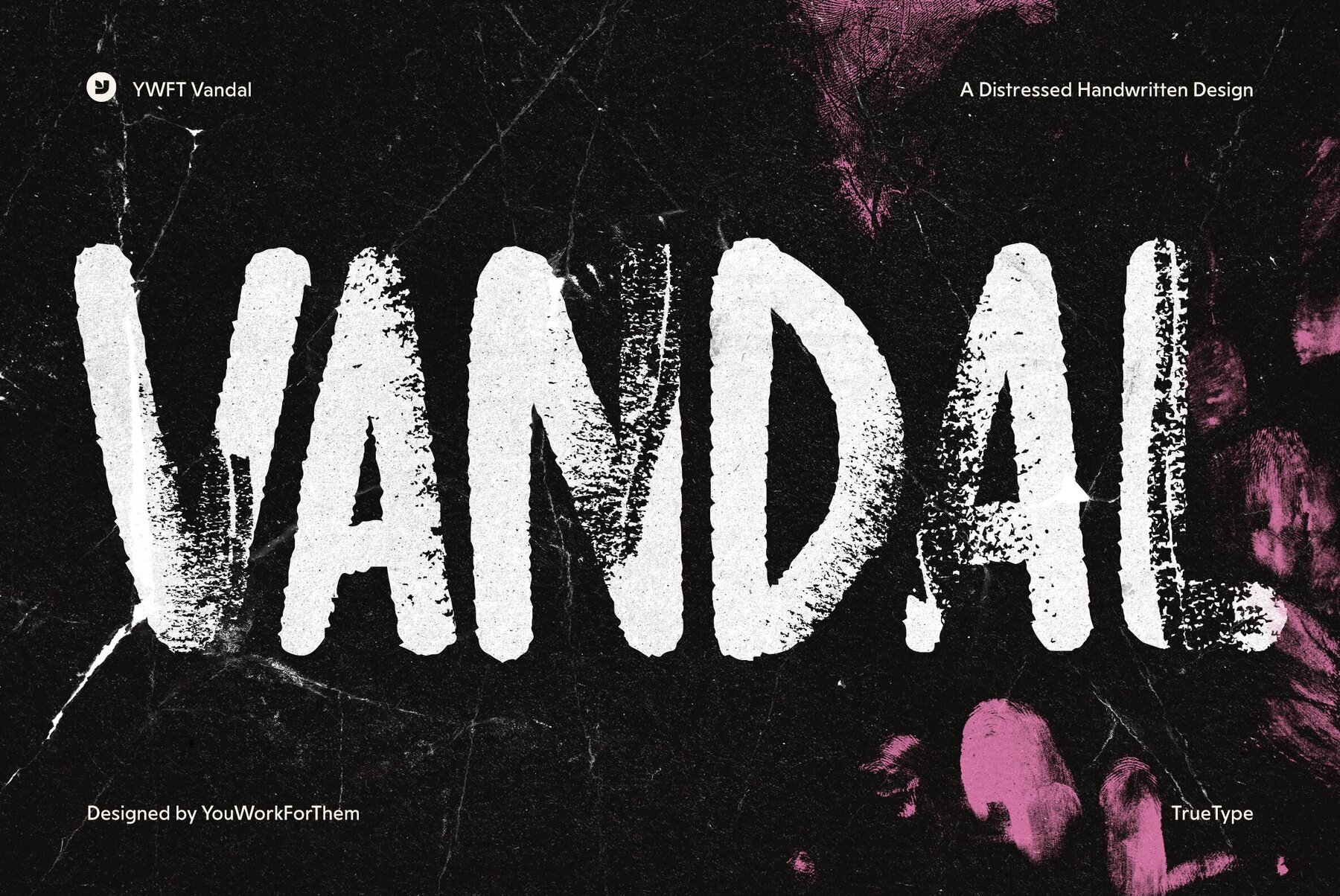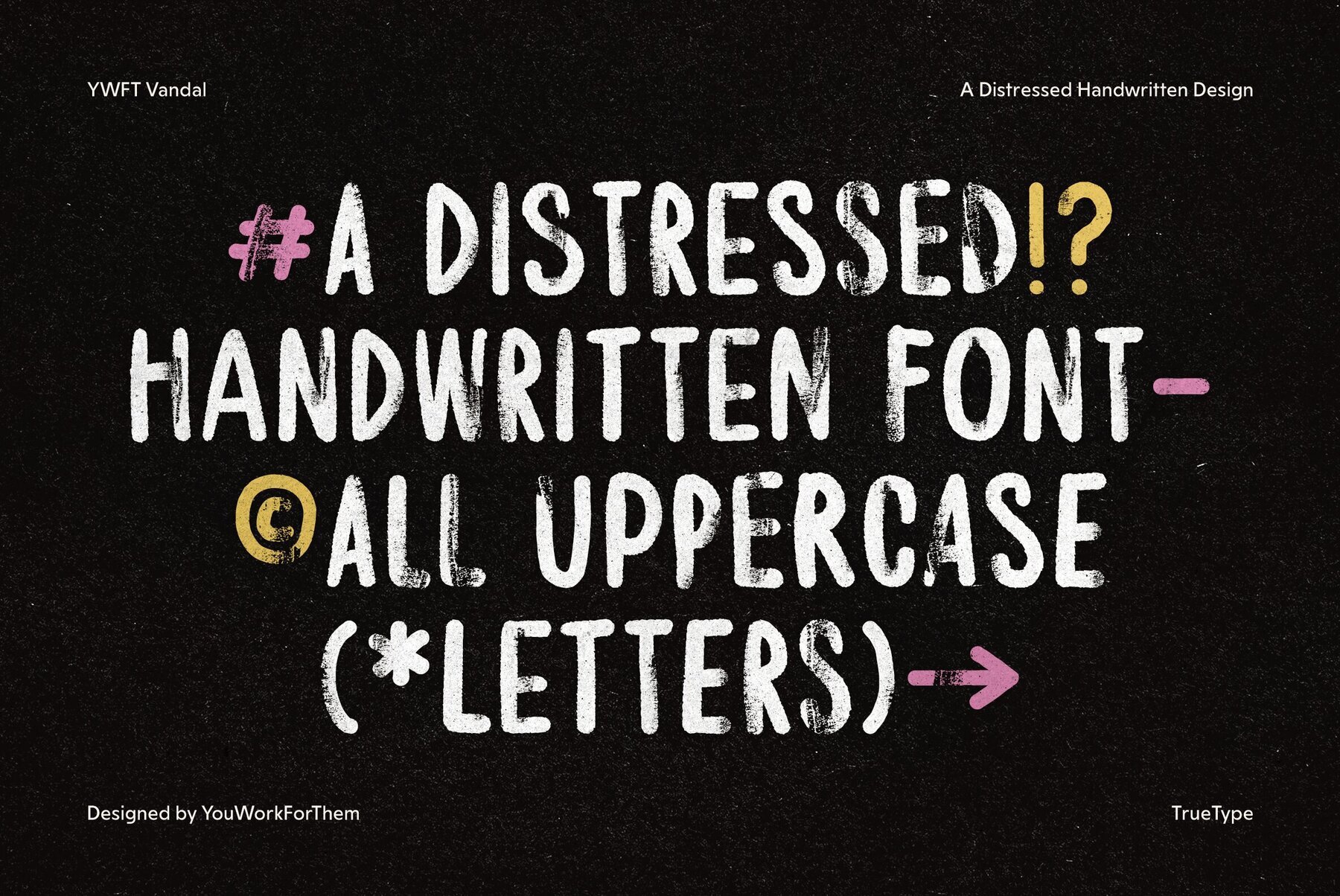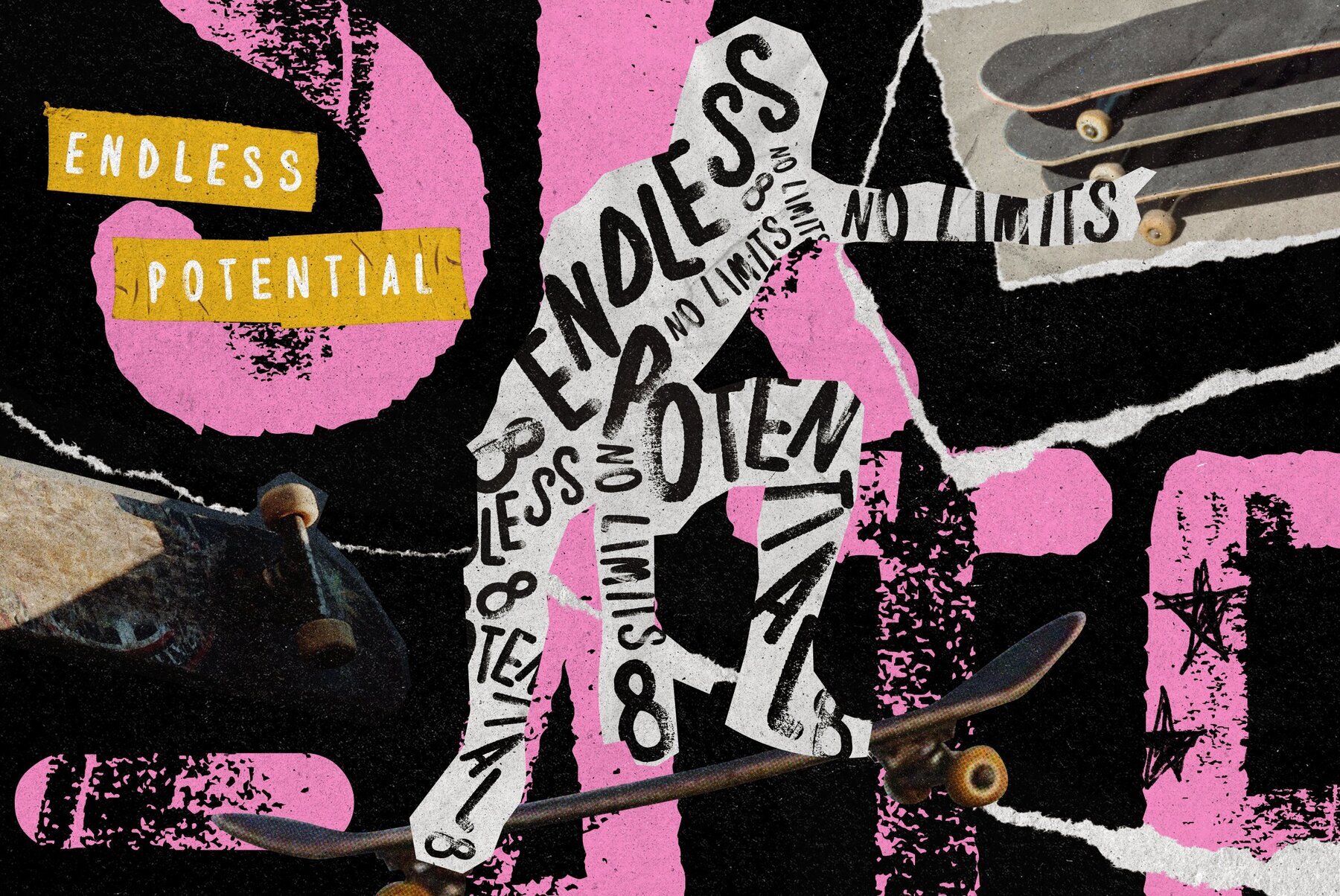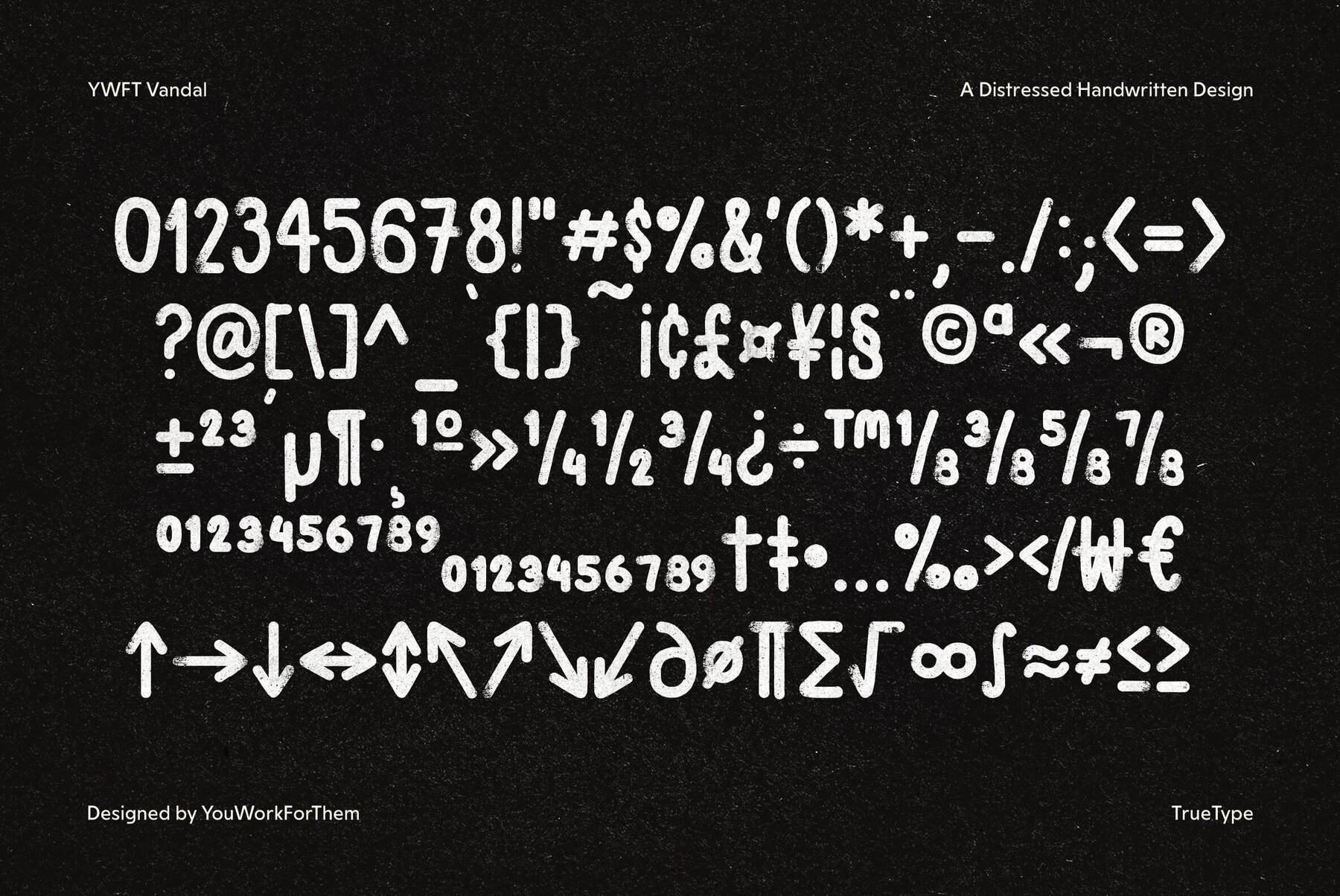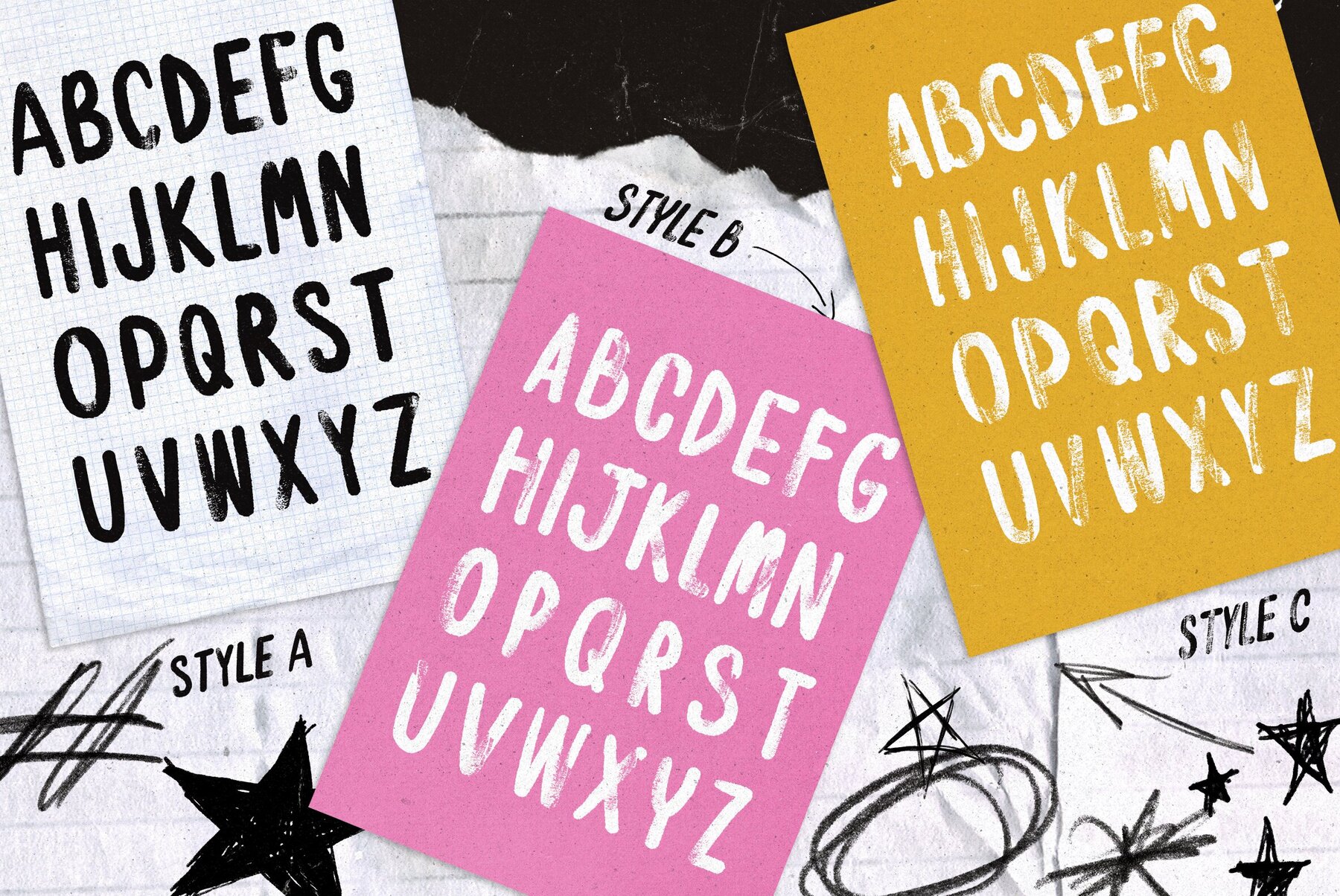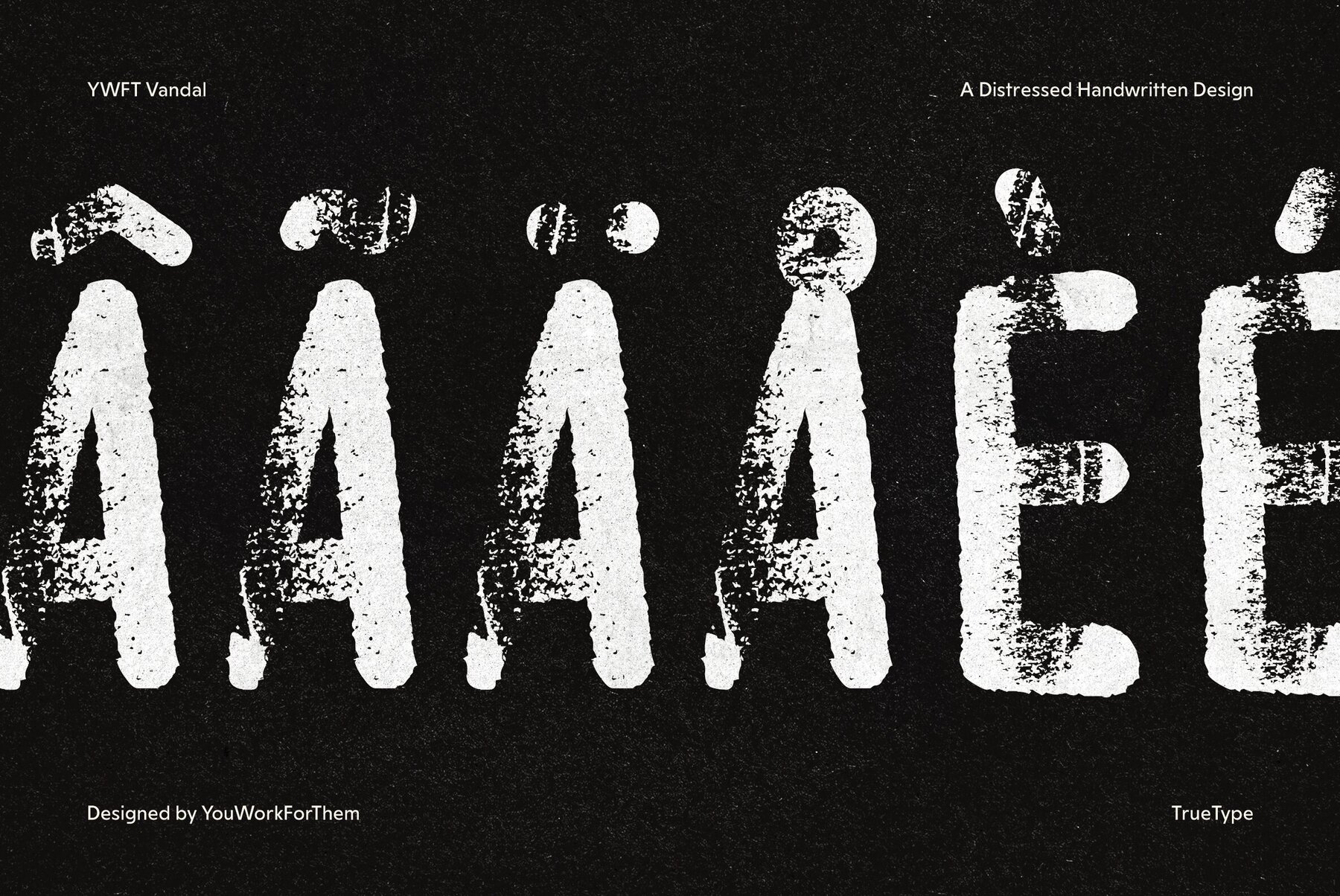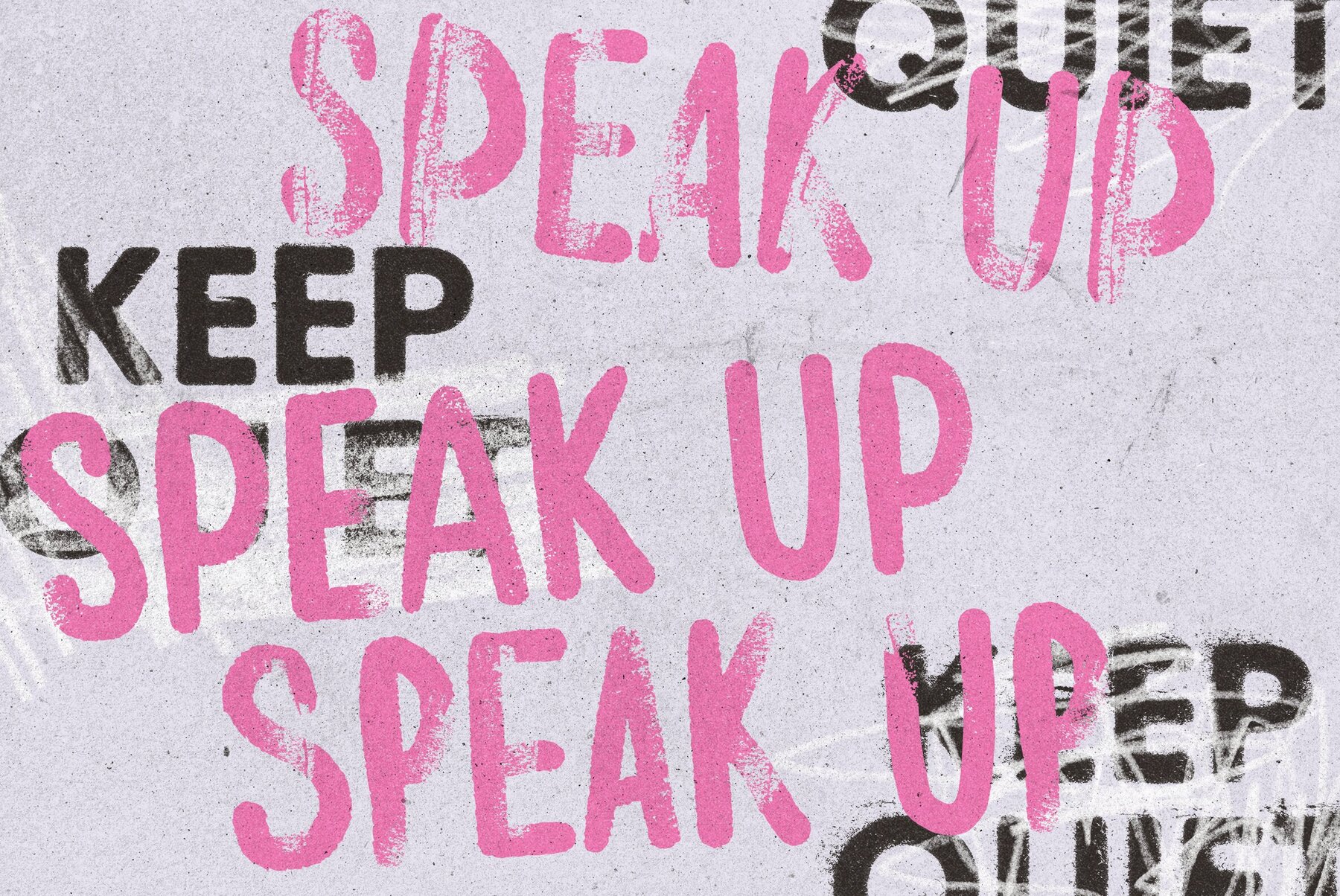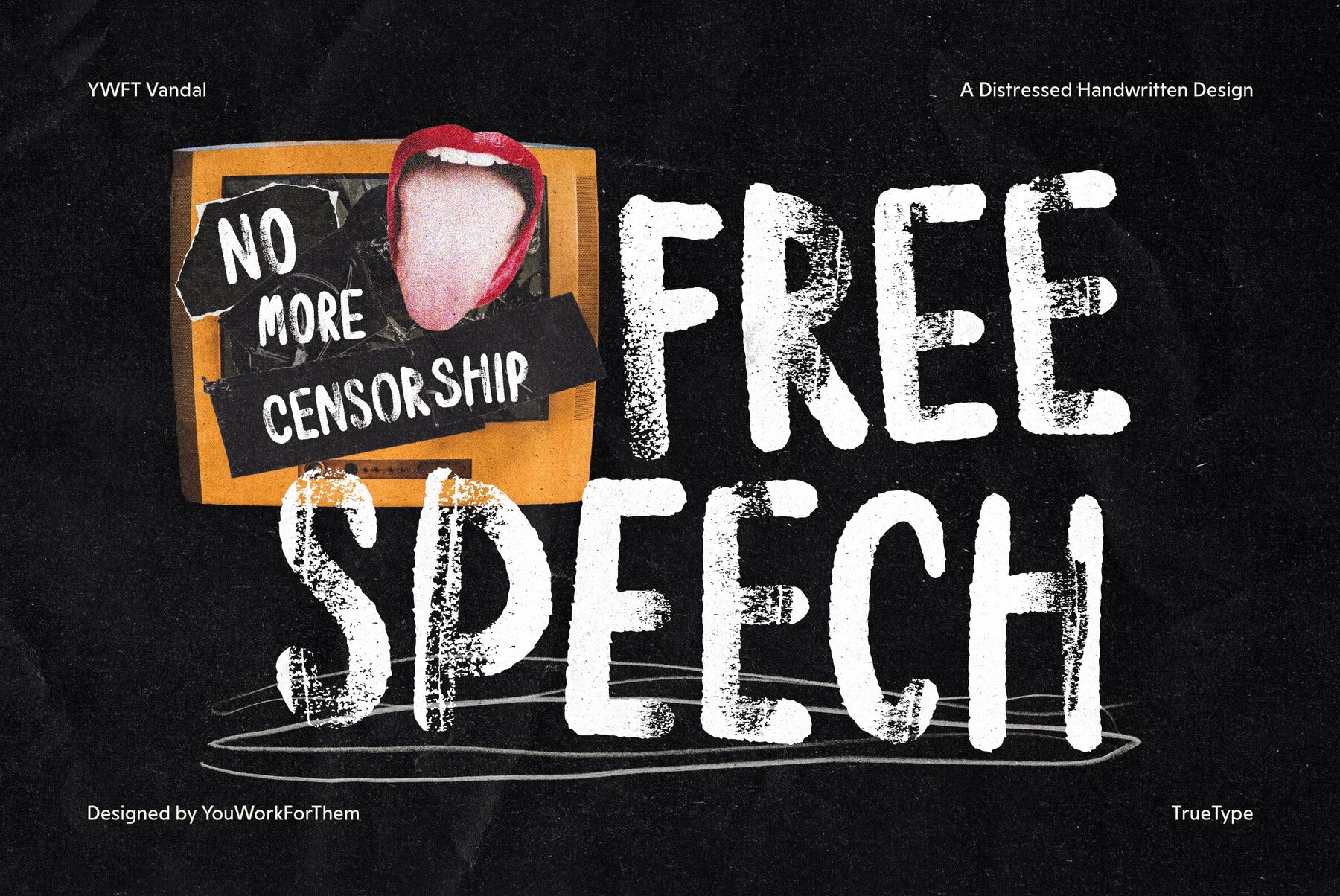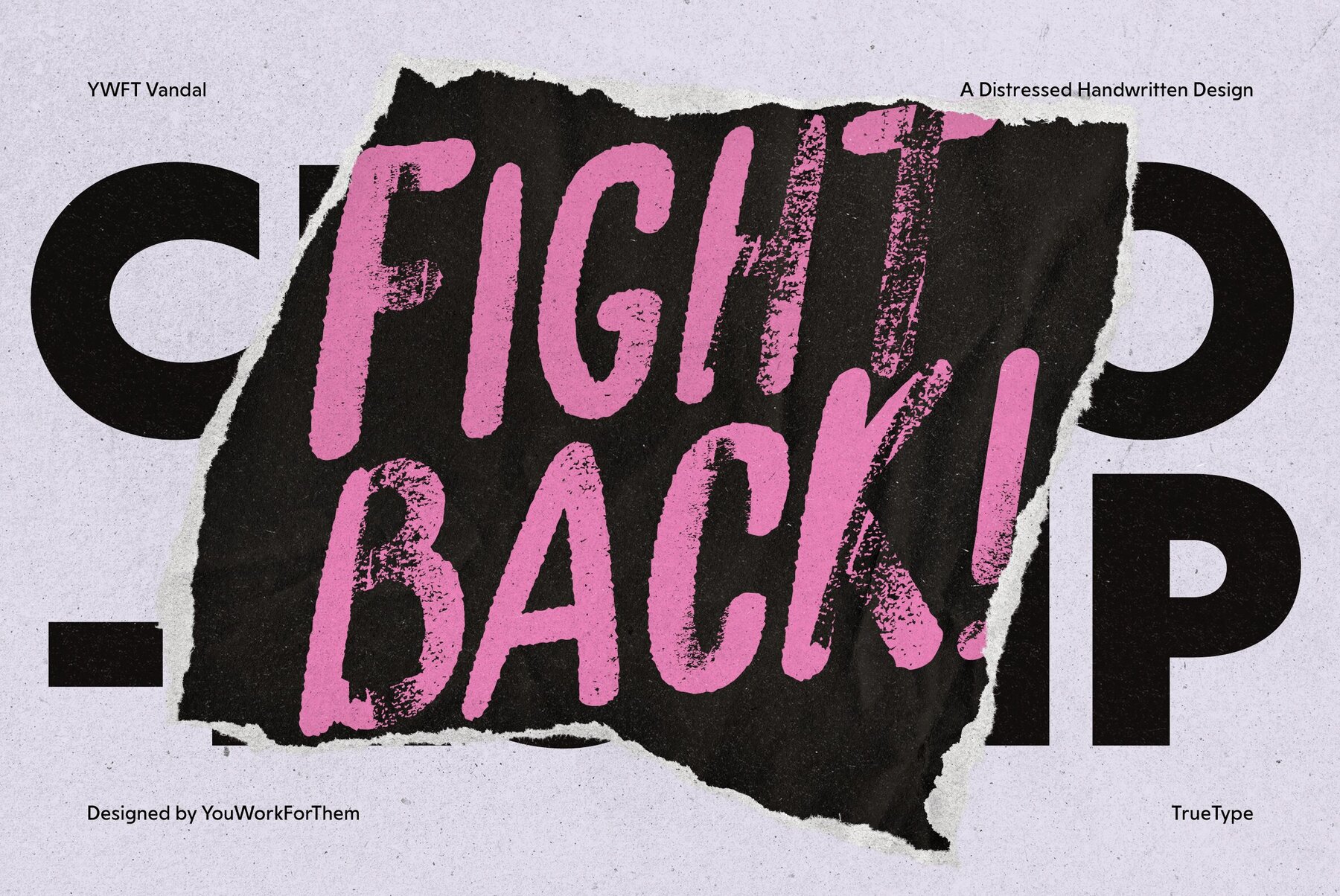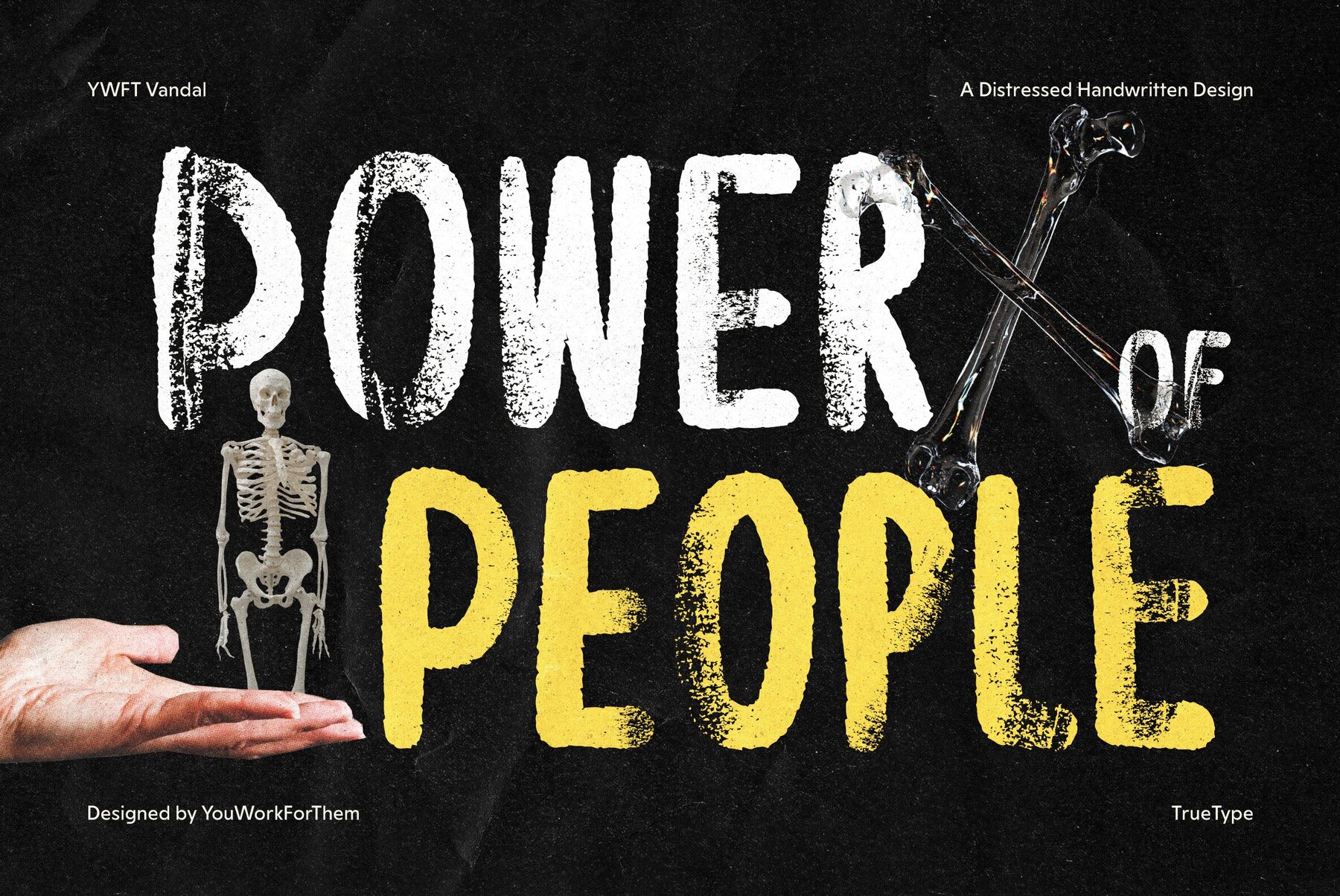
YWFT Vandal Font
YWFT Vandal A
YWFT Vandal B
YWFT Vandal C
YWFT Vandal combines sweet, playful vibes with a gritty essence, making it perfect for grunge, punk, or urban-themed projects. Featuring three variations of increasing distress, it provides versatility in design. Formerly known as YWFT Watermelon (2017), YWFT Vandal has been rebranded to appeal to the food industry and beyond. Its all-caps design exudes a friendly yet raw vibe, ideal for logos, branding, displays, and product packaging. The bold lettering is crafted to capture attention and make a statement. Exclusive to YouWorkForThem, YWFT Vandal offers straightforward licensing for both personal and commercial use. Once purchased, it's yours to use indefinitely across various media and marketing channels. Embrace the unique blend of sweetness and edge with YWFT Vandal, perfect for designs that need to stand out with authenticity and character. Additional products used for slideshow images:YWFT Vandal: A Grunge Typeface for Bold Expressions